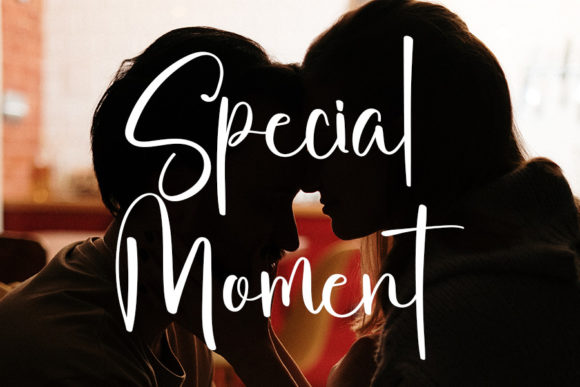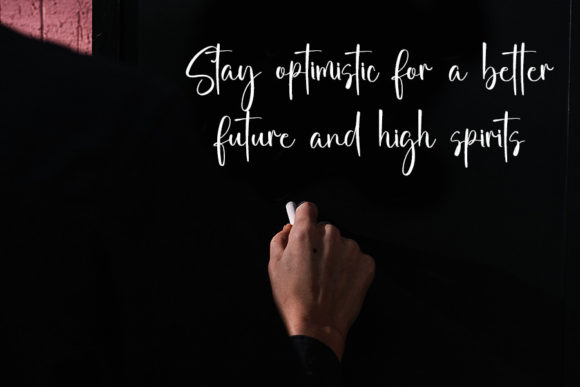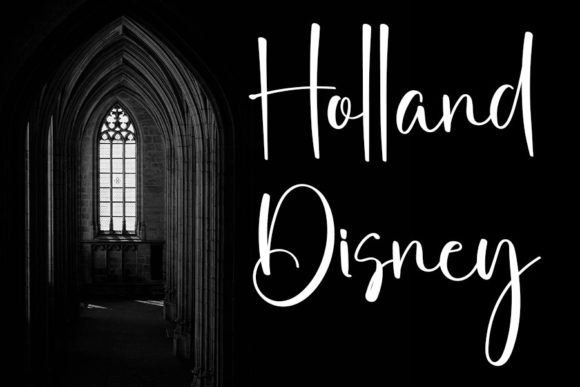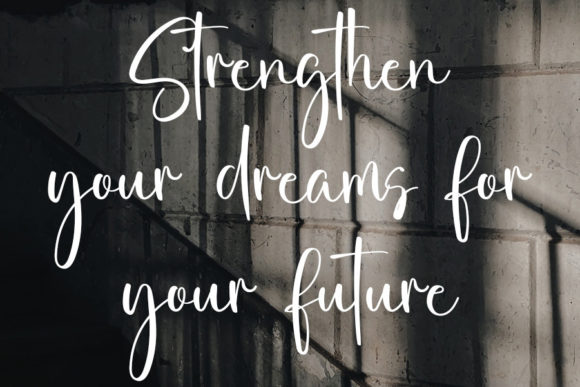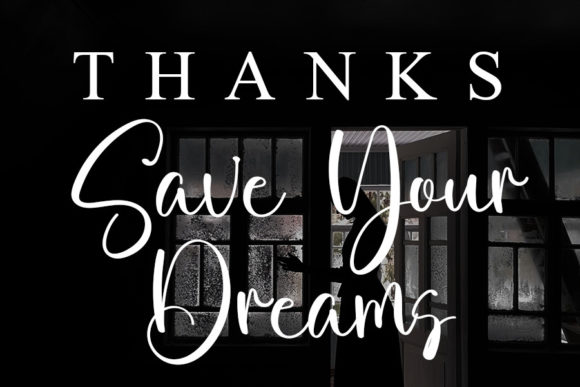
Introducing Blackwhite Font: Elevate Your Designs with Elegance and Flair
In the world of typography, fonts play a crucial role in bringing designs to life. Among the myriad of fonts available, Blackwhite Font stands out for its delicate, elegant, and flowing handwritten style. This beautiful font is designed to add a touch of sophistication and charm to any design project. In this article, we’ll delve into the features and benefits of Blackwhite Font, and explore how it can elevate your creative endeavors.
The Beauty of Blackwhite Font
Blackwhite Font is a handwritten font that exudes elegance and refinement. Its characters are meticulously crafted to achieve a perfect balance of form and function, making it an excellent choice for a wide range of design applications. The font’s delicate strokes and flowing lines create a sense of movement and fluidity, adding a dynamic touch to any design.
One of the standout features of Blackwhite Font is its versatility. Its well-balanced characters make it an excellent match for various design styles, from modern and minimalist to vintage and ornate. Whether you’re working on a logo design, branding project, or marketing materials, Blackwhite Font is sure to make a lasting impression.
Why Choose Blackwhite Font?
So, what sets Blackwhite Font apart from other fonts? Here are a few compelling reasons to choose Blackwhite Font for your next design project:
- Elegance and sophistication: Blackwhite Font adds a touch of refinement and luxury to any design, making it perfect for high-end brands and creative projects.
- Versatility: The font’s well-balanced characters make it suitable for a wide range of design applications, from digital media to print materials.
- Easy to read: Despite its elegant and flowing style, Blackwhite Font remains highly legible, ensuring that your message is conveyed clearly and effectively.
- Unique and distinctive: Blackwhite Font’s distinctive style sets it apart from more traditional fonts, giving your designs a unique and memorable edge.
How to Use Blackwhite Font in Your Designs
Blackwhite Font is an incredibly versatile font that can be used in a variety of design contexts. Here are a few ideas to get you started:
- Logo design: Use Blackwhite Font to create a sophisticated and elegant logo that reflects your brand’s personality and values.
- Branding and packaging: Add a touch of luxury and refinement to your branding and packaging materials with Blackwhite Font.
- Marketing materials: Use Blackwhite Font in your marketing materials, such as brochures, flyers, and posters, to create a lasting impression on your target audience.
- Digital media: Blackwhite Font is perfect for digital media, including social media graphics, website headers, and email newsletters.
Tips for Getting the Most Out of Blackwhite Font
To get the most out of Blackwhite Font, here are a few tips to keep in mind:
- Experiment with font sizes: Blackwhite Font looks great in a variety of font sizes, from large headings to smaller body text.
- Play with color: Blackwhite Font can be used with a range of colors, from bold and bright to muted and pastel.
- Mix and match: Combine Blackwhite Font with other fonts to create a unique and visually appealing typography scheme.
In conclusion, Blackwhite Font is a beautiful and elegant handwritten font that can elevate any design project. Its delicate, flowing lines and well-balanced characters make it a versatile and sophisticated choice for a wide range of design applications. Whether you’re a designer, crafter, or simply someone looking to add a touch of elegance to your creative projects, Blackwhite Font is an excellent choice. So why not give it a try and see how it can bring your designs to life?